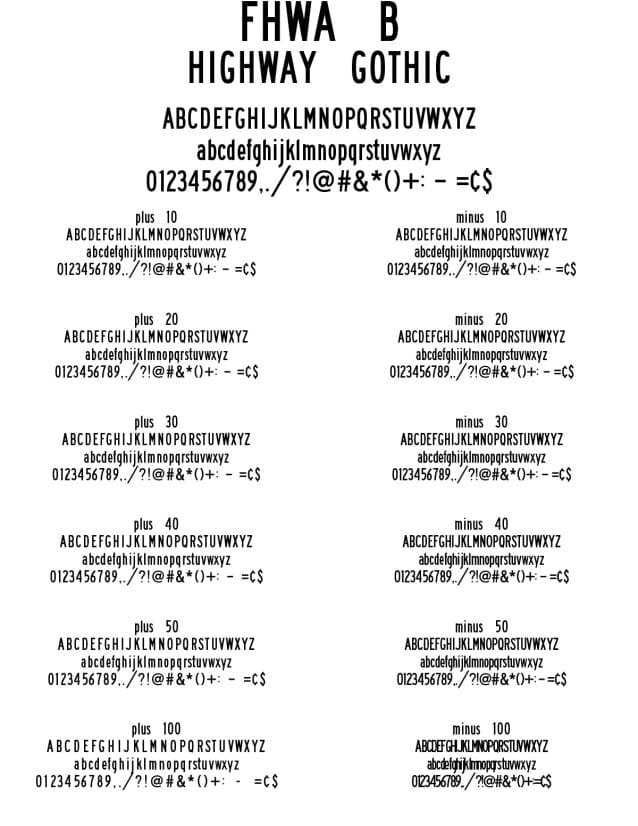
FHWA Series B 2025 Font, suitable for the creation of official road, street and highway signage in the US. Public domain outlines from the Federal Highway Administration. Includes recent updates to ¢, $ – +
| Designer Name: | Barry Stock Fonts |
| Classification: | Sans Serif Fonts, Style / Aesthetic Fonts |